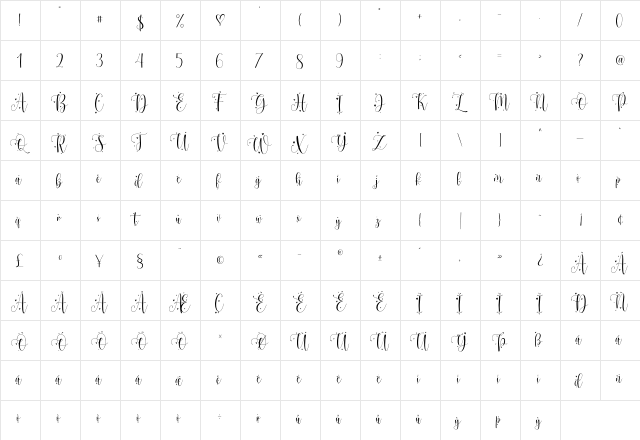
Mother Tongue - Personal Use Regular
| Foundry | Ef Studio - Luthfi Fauzi |
| Designer | Ef Studio - Luthfi Fauzi |
Design Context for Mother Tongue - Personal Use Typeface
Mother Tongue - Personal Use is a composed and adaptable typeface that performs quietly and consistently across a wide range of design contexts.